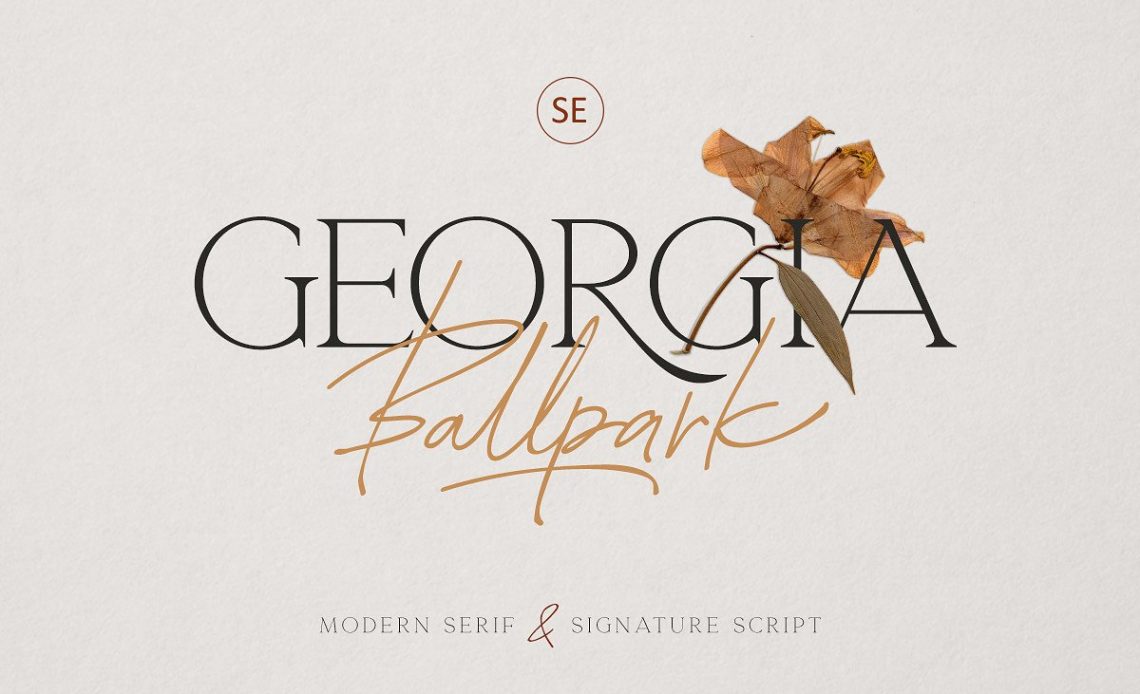
Looking for a stunning font duo that combines modern serif with a freehand script font? Look no further than Georgia Ballpark - Font Duo, created by the talented Sarid Ezra.
This font duo is the perfect choice for those looking to elevate their design projects to the next level. The delicate modern serif font provides a refined and elegant touch, while the signature script font adds a touch of playfulness and personality.
But that's not all - Georgia Ballpark - Font Duo also boasts extensive features to make your design process a breeze. The font duo supports multilingual characters, numbers, symbols, and end swashes. Plus, with many ligatures and PUA encoding, your typography options are limitless.
Whether you're working on a branding project, website design, or just need to spice up your social media graphics, Georgia Ballpark - Font Duo is the perfect solution. It's versatile and eye-catching, making it a must-have for any design project.